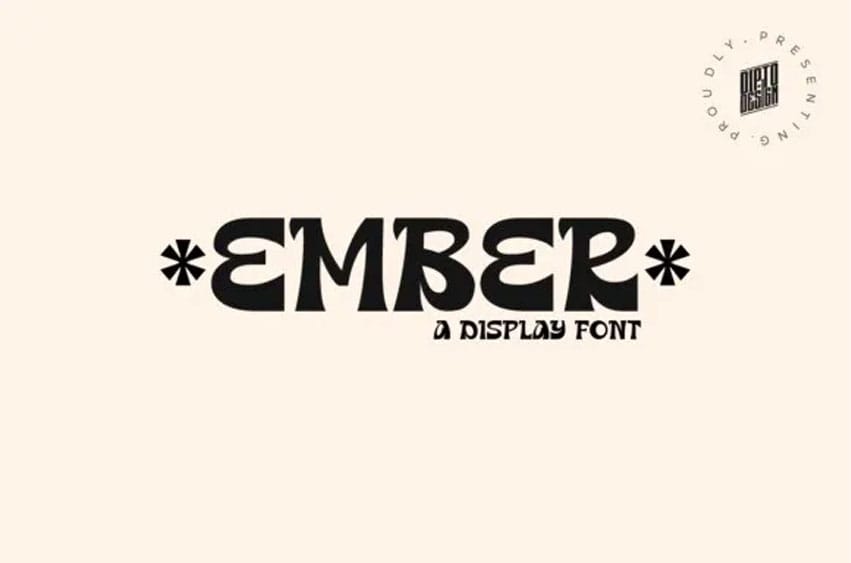
Ember Font is a bold and dynamic display typeface that sets your designs ablaze with creativity! Crafted for impact, this typeface ignites visual interest, making it perfect for headlines, posters, and branding projects—the characters of “Ember” dance with intensity, creating a fiery presence that demands attention.
With a perfect blend of strength and style, this typeface adds a touch of drama to your creative expression. Illuminate your projects with “Ember” and let the sparks fly.